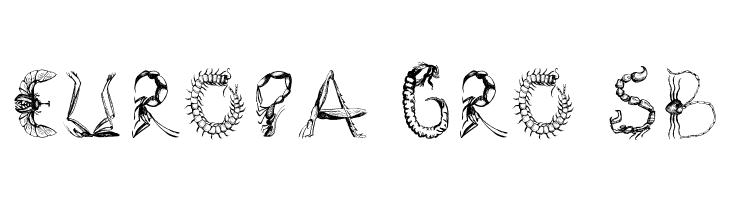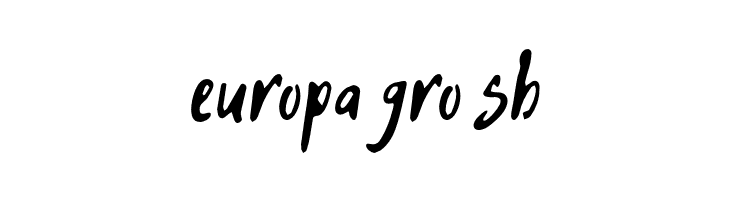
A decorative font featuring intricate insect-themed designs within each character.
A lively, handwritten-style font with dynamic strokes and a casual feel.
A decorative font inspired by intricate insect and arthropod designs.